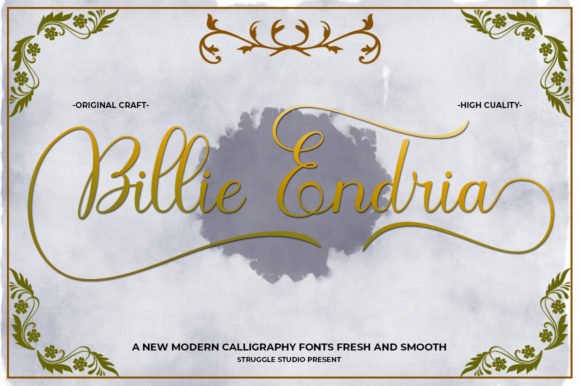
What Dreams Are Made Of: Unveiling the Timeless Elegance of Billie Endria Font
Have you ever been stuck in the midst of a creative project, struggling to find the perfect font to bring your vision to life? The blank page stares back at you, taunting you with possibilities. That’s when it hits you – a spark of inspiration that sets your imagination ablaze. For designers, finding the right font can be the difference between a good design and a great one.
Enter the Billie Endria Font, a sophisticated and charming script that’s been making waves in the design community. This elegant font is perfect for those seeking a touch of vintage charm with a modern twist. With its versatility and timeless appeal, Billie Endria Font is an invaluable asset for designers looking to add a personal touch to their projects.
Review of Billie Endria Font
I recently had the chance to work with the Billie Endria font, and I must say, it’s a unique and intriguing choice. Here are my thoughts:
- Legibility**: Billie Endria has excellent legibility, making it easy to read even at smaller font sizes.
- Customization options**: The font offers a range of customization options, allowing designers to tailor the font to their specific needs.
- Style versatility**: Billie Endria can be used for both modern and classic designs, making it a versatile choice for various projects.
- Lack of consistency**: I found some inconsistencies in the font’s letterforms and spacing, which can be distracting in certain contexts.
- Narrow character set**: The font’s character set is relatively limited, which may not be suitable for projects requiring a wide range of special characters.
- Not ideal for small text**: While Billie Endria is legible at larger font sizes, it may not be the best choice for small text due to its complexity.
Billie Endria is a solid choice for designers looking for a unique and stylish font. While it has some limitations, its customization options and style versatility make it a valuable addition to any design arsenal. However, designers should be aware of its potential drawbacks, especially when it comes to consistency and character set limitations.
Billie Endria Font works well for creating eye-catching headings and titles in Canva.
Billie Endria Font is ideal for creating custom typography and graphics in Adobe Photoshop and Illustrator.
Billie Endria Font works well for creating visually appealing headings and titles in PowerPoint and Word.
Billie Endria Font is ideal for:
- Creating eye-catching headings and titles
- Designing custom typography and graphics
- Adding a touch of elegance to presentations and documents